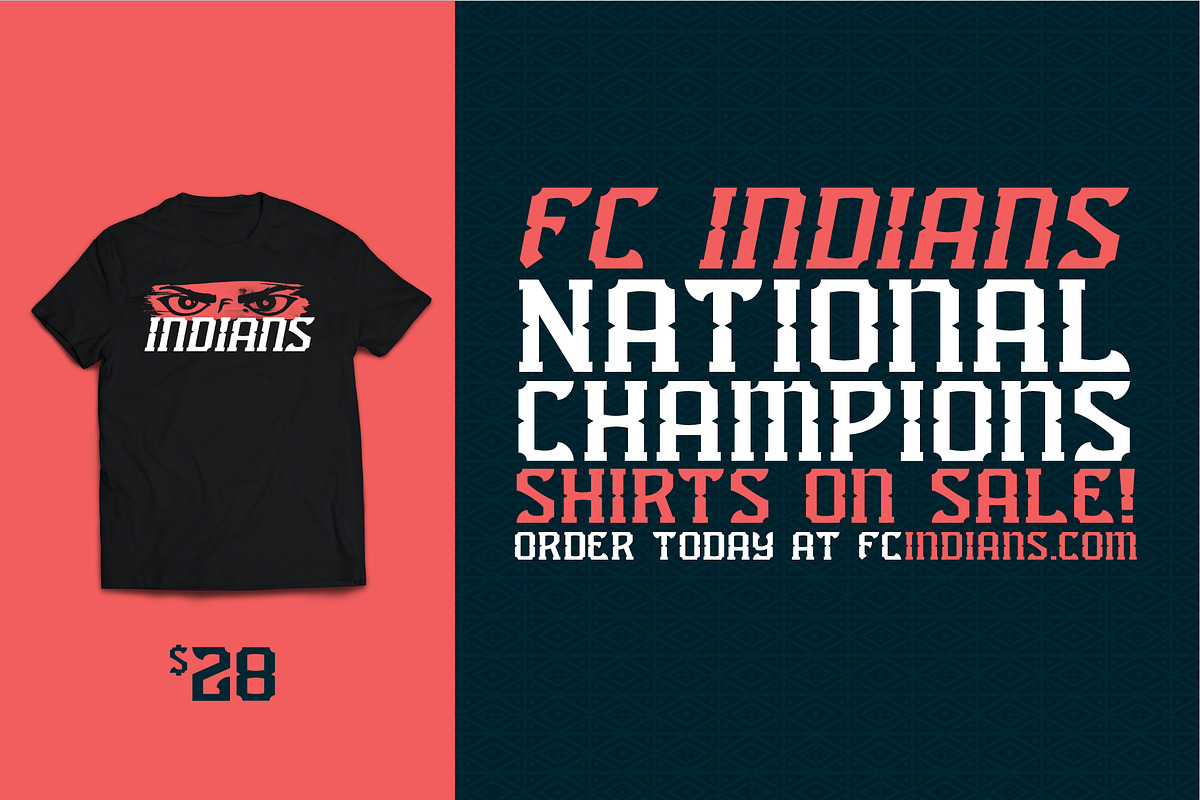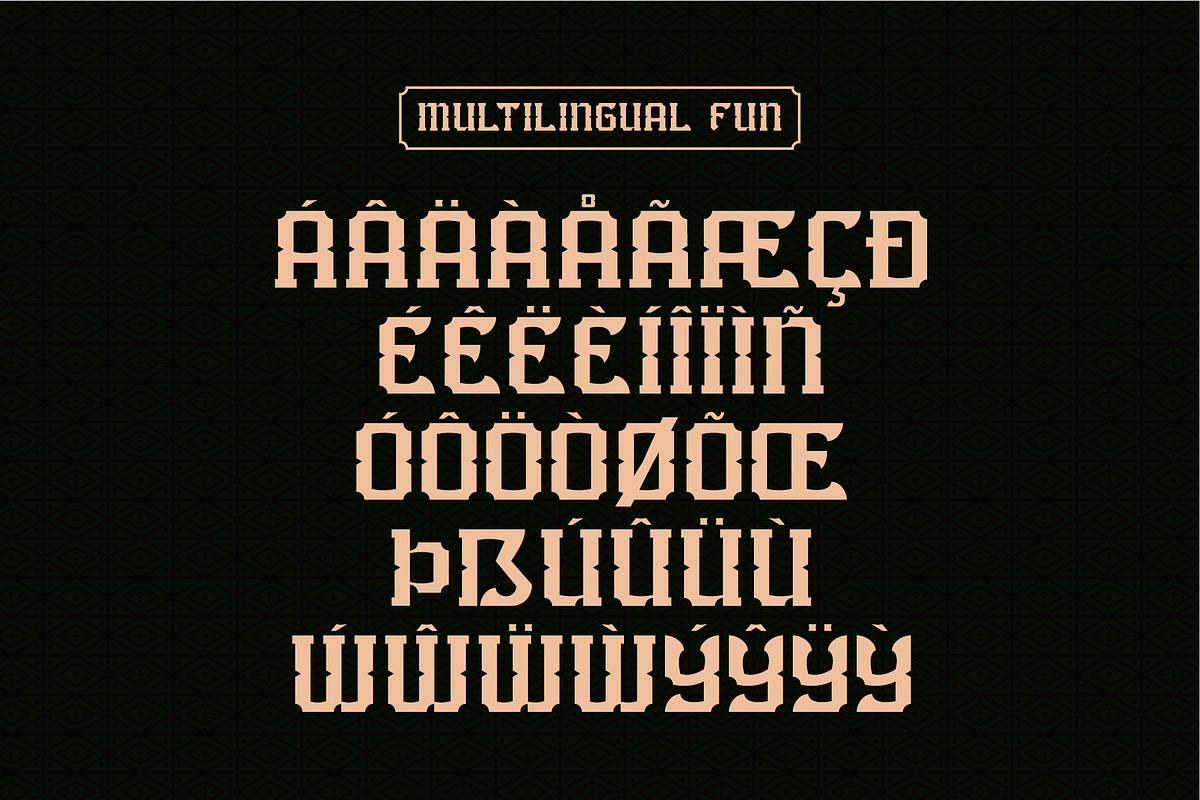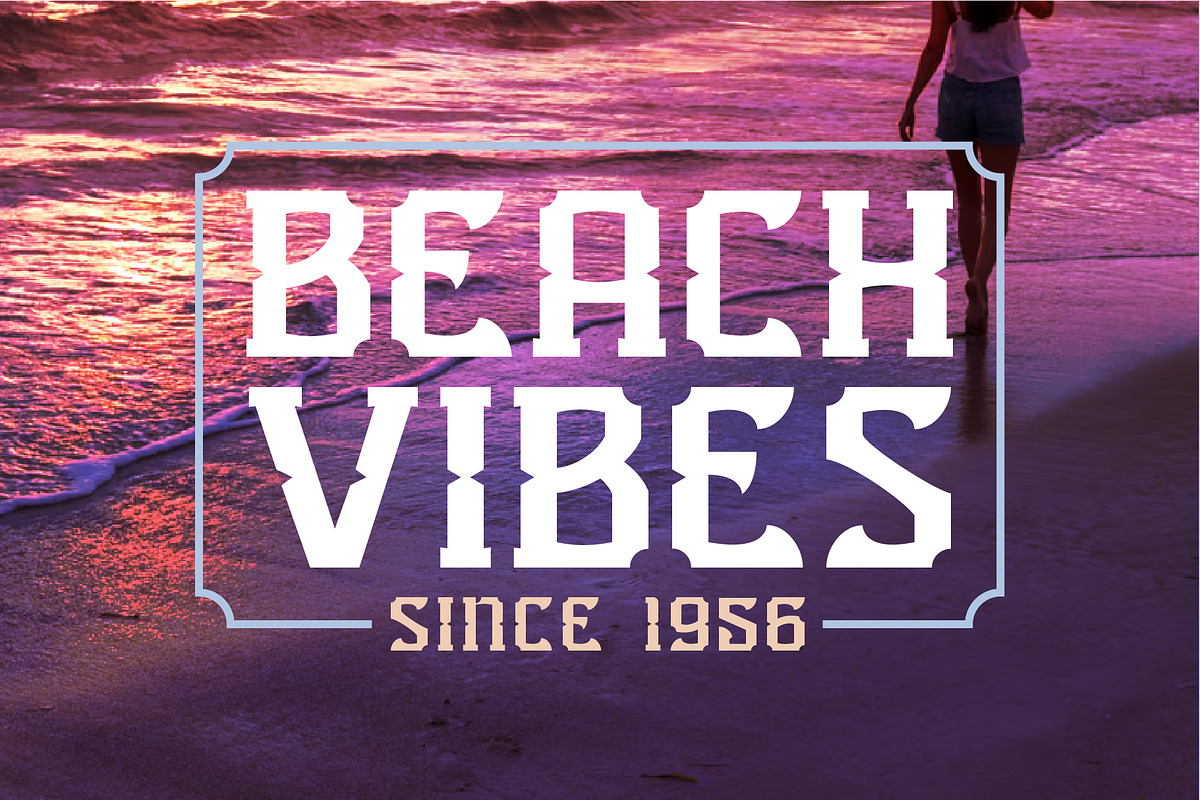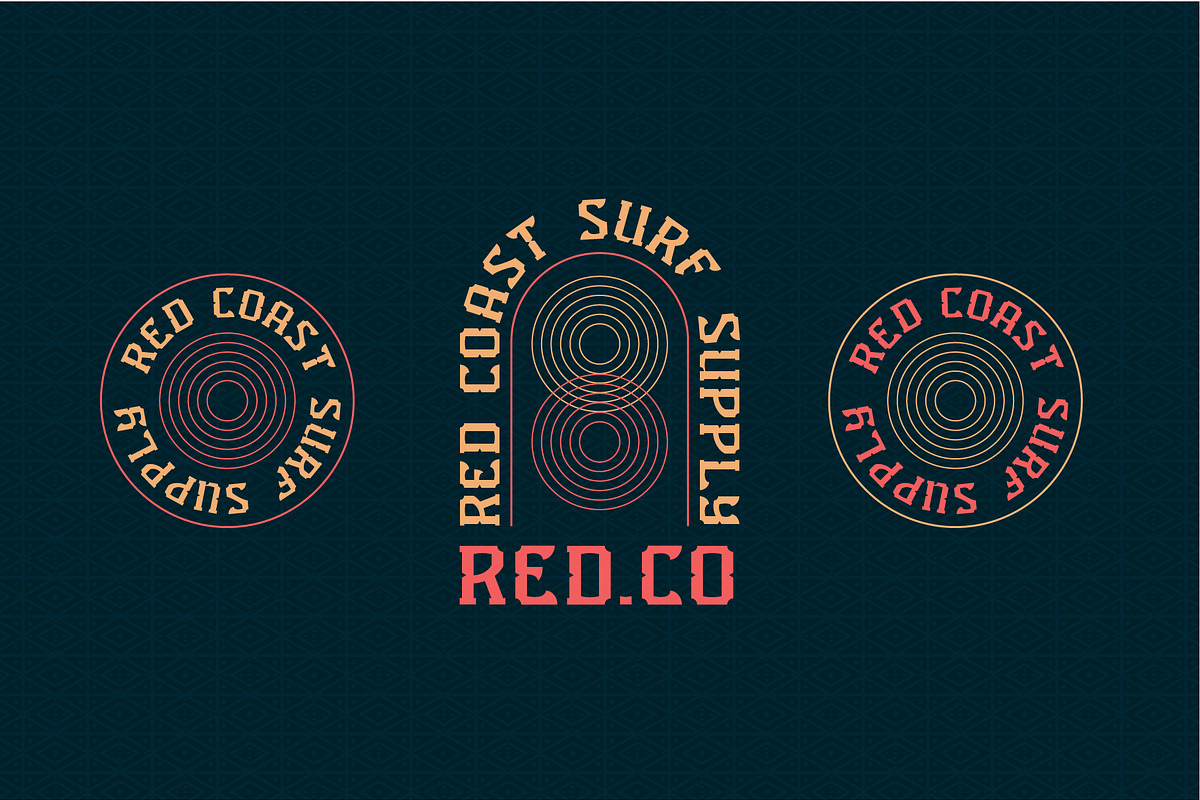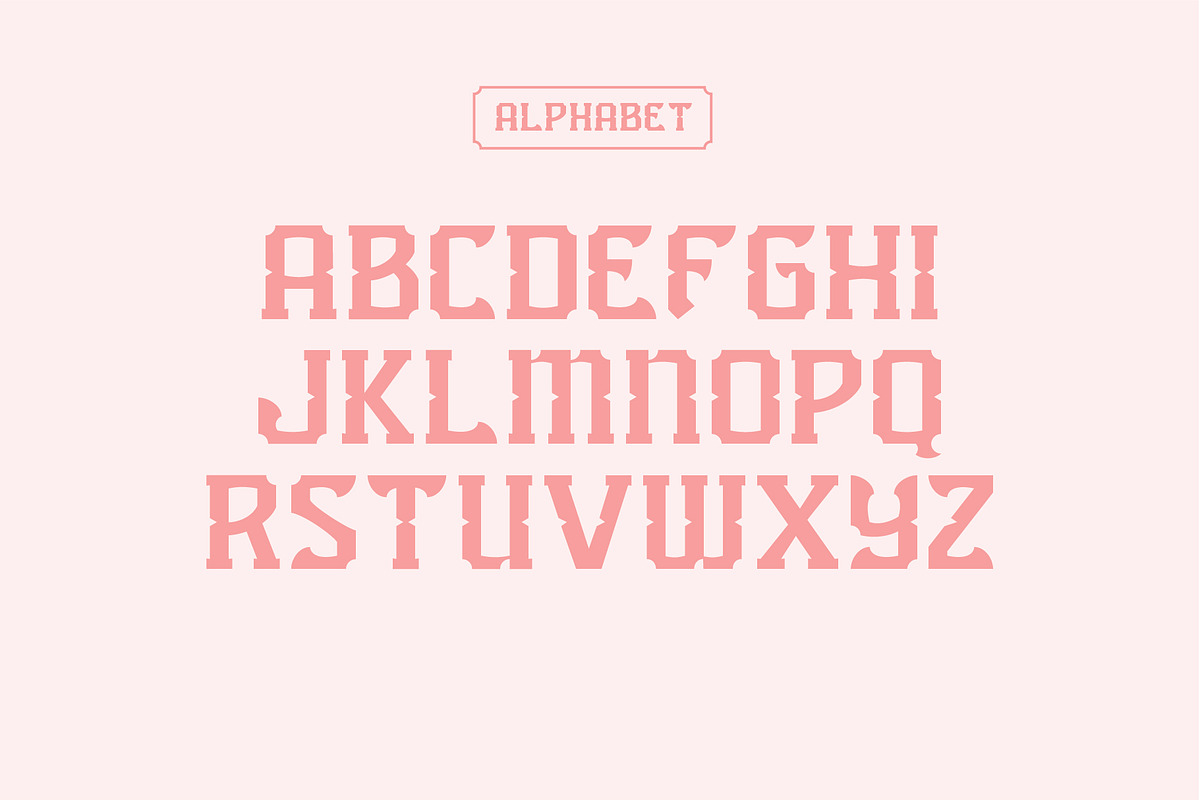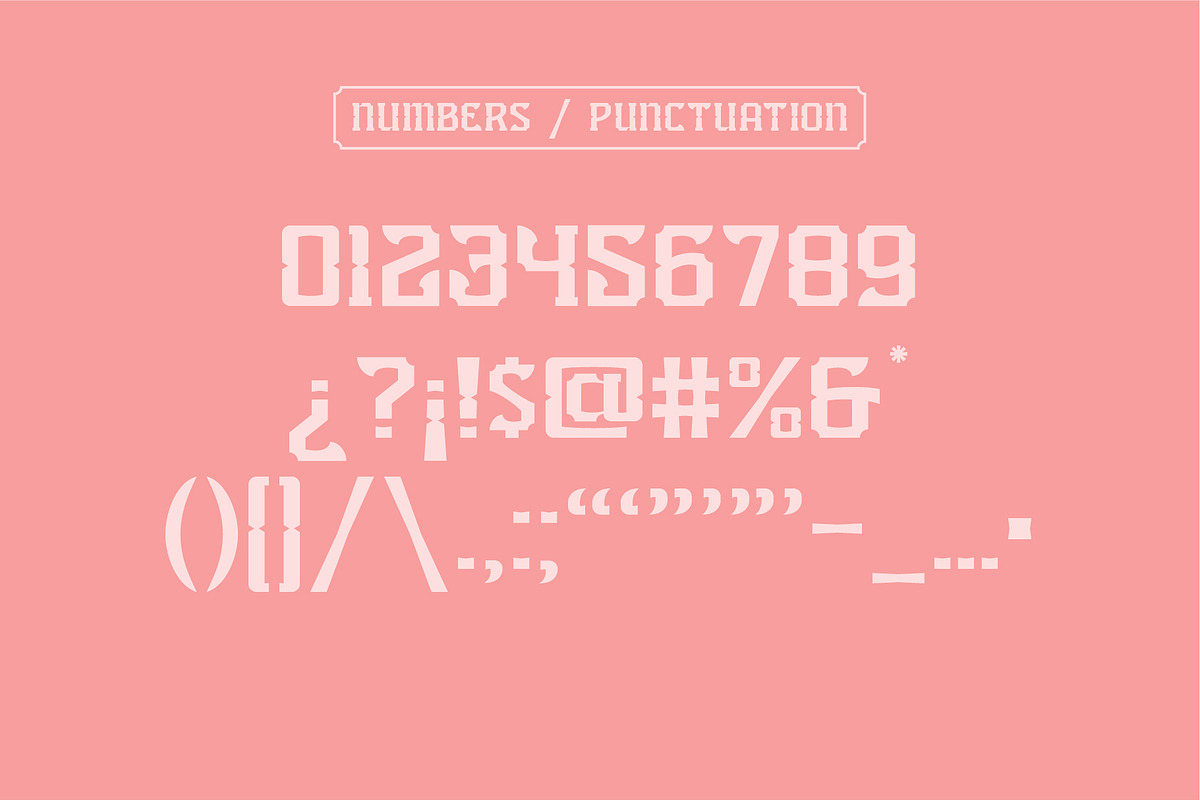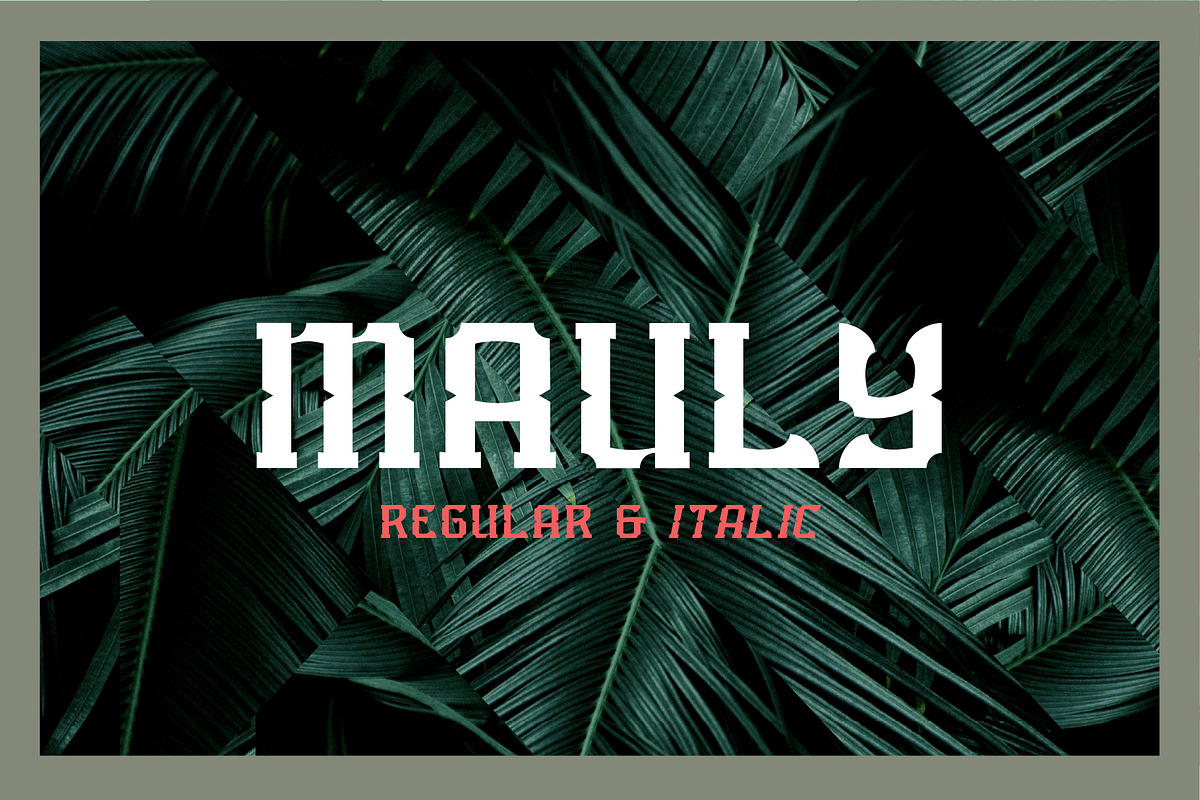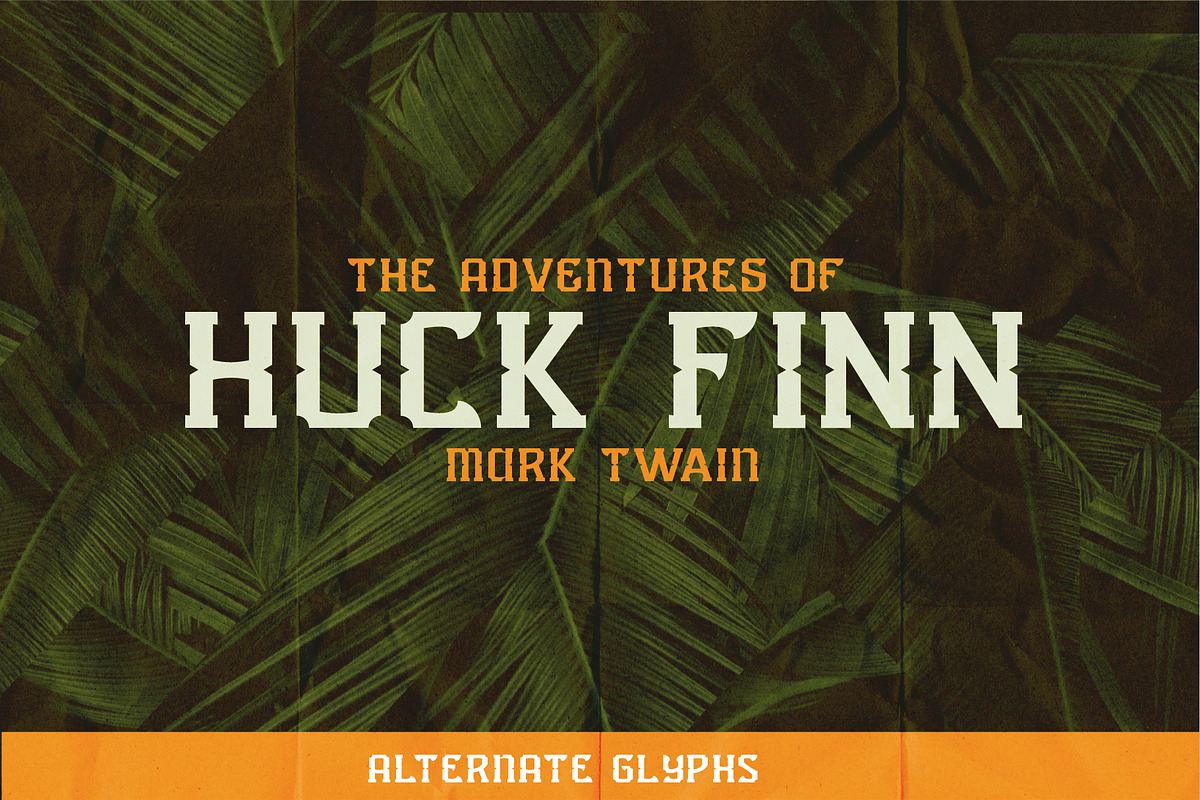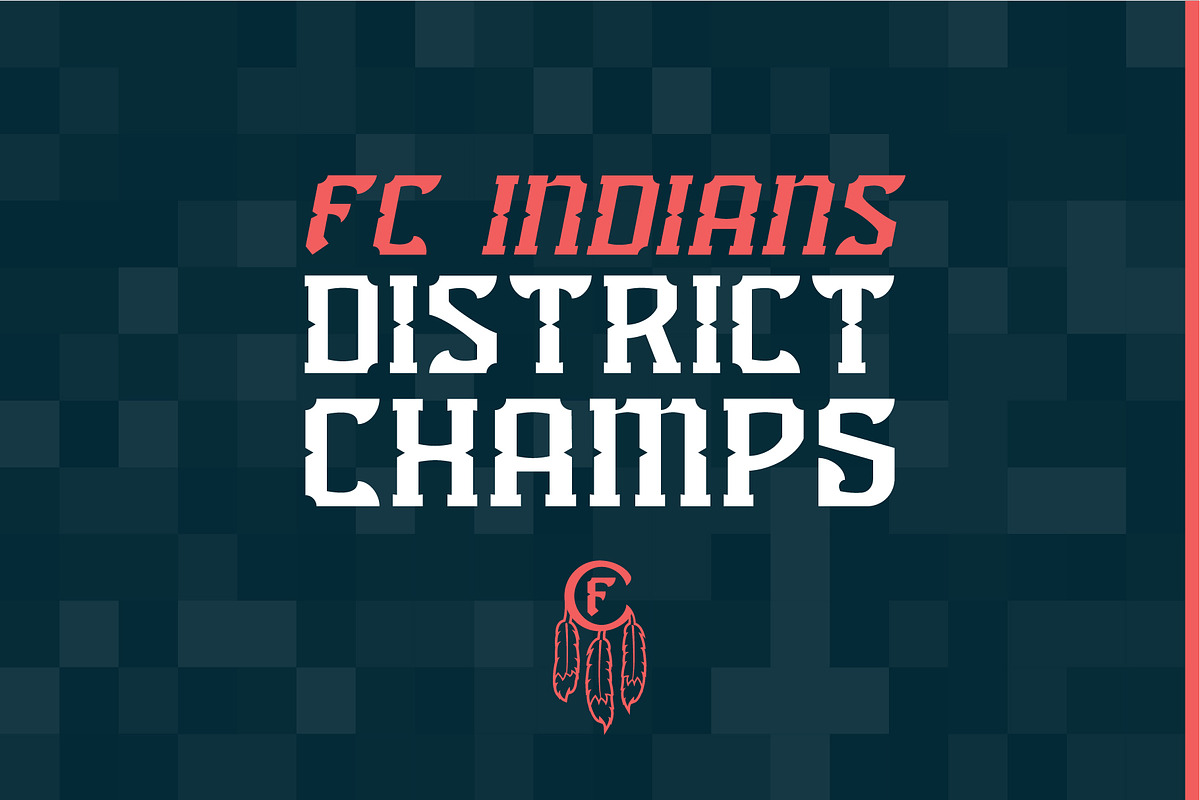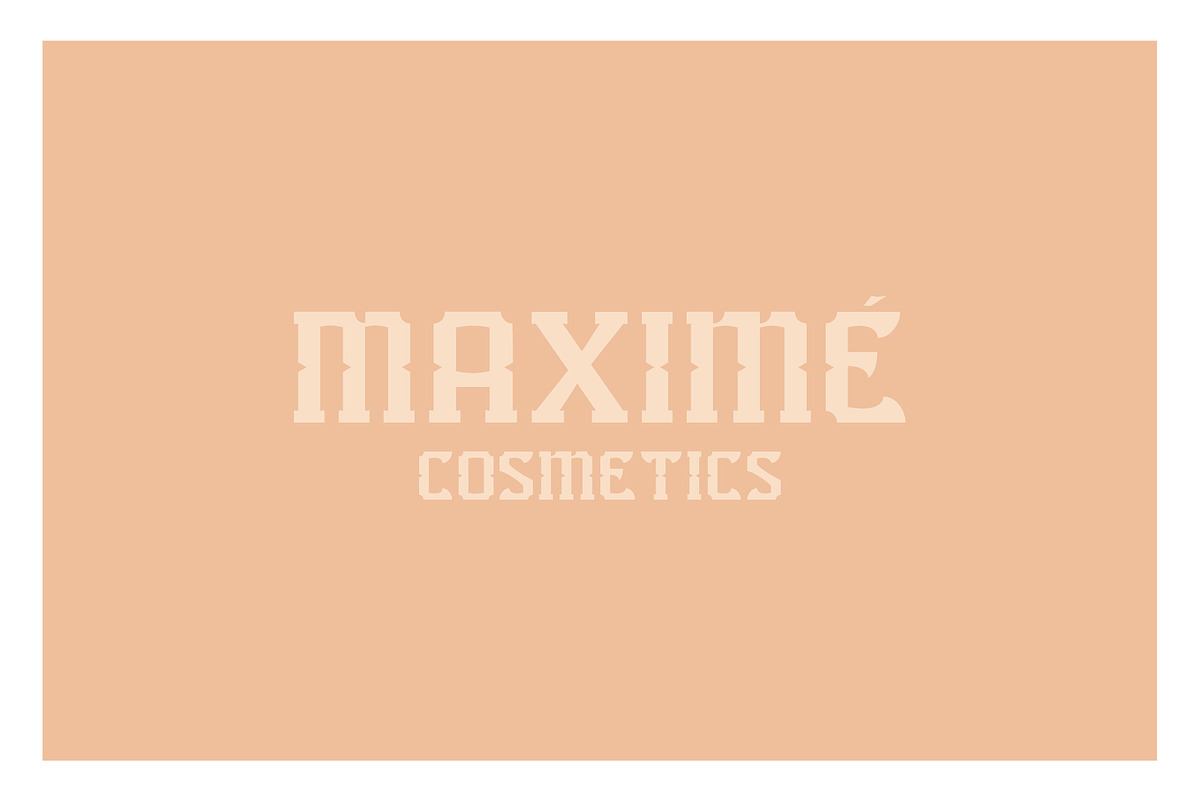
Mauly Typeface
Introducing MAULY, a unique typeface crafted with inspiration drawn from sports and the tomahawk. The original idea was to design something sporty with a wood carved style and hopefully, I landed somewhere near the middle of those two. There are roots in the varsity type style, which gives MAULY the athletic look. The notches and curves add that hand-carved look bringing a more human element to the MAULY
Use MAULY for a variety of headline type situations. MAULY plays nice with the design arenas of surf / beach apparel, fitness / sports apparel & designs, editorial work.
Features Include
- Alternate Glyphs (Mix things up)
- Basic Diacritics (In case you need to throw down some Spanish/French, etc.)